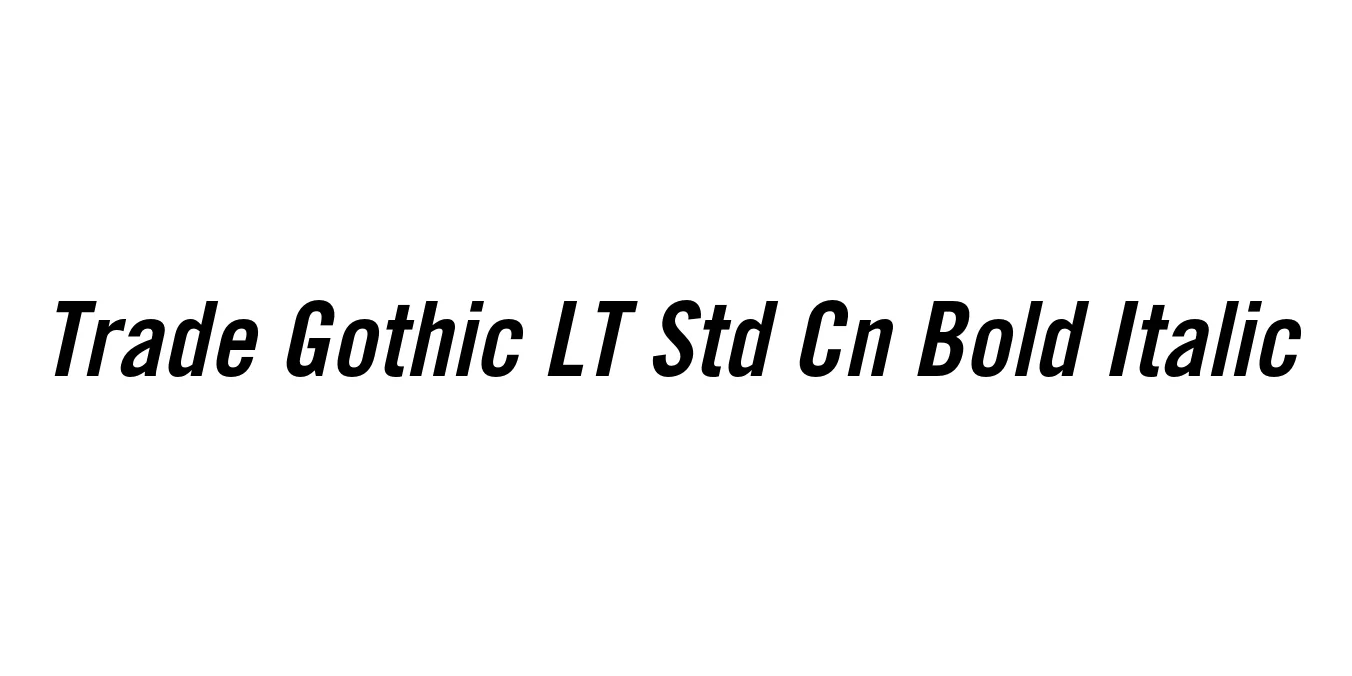
Trade Gothic LT Std Cn Bold Italic
Designed by Jackson Burke
Trade Gothic was designed by Jackson Burke between 1948 and 1960 during his tenure as director of type development at Mergenthaler Linotype. Unlike many other sans-serif families that were conceived as a single cohesive unit, Trade Gothic evolved over more than a decade, resulting in a collection of faces with subtle irregularities that provide a more human, organic quality compared to the more mechanical feel of its contemporaries like Helvetica or Univers.
The Trade Gothic LT Std Cn Bold Italic variant excels in high-pressure editorial environments and complex advertising layouts. Its condensed structure allows for large, impactful type in narrow columns, while the bold weight and italic slant add a sense of urgency and dynamic motion. This specific style is frequently used in newspaper headlines and sports branding where space is at a premium and authority is paramount.
Trade Gothic LT Std Cn Bold Italic Best Uses
Perfect for high-impact newspaper and magazine headlines where column space is limited.
Ideal for creating urgent and bold promotional materials and call-to-actions in vertical layouts.
Used extensively in sports and industrial sectors to convey a sense of strength, speed, and reliability.